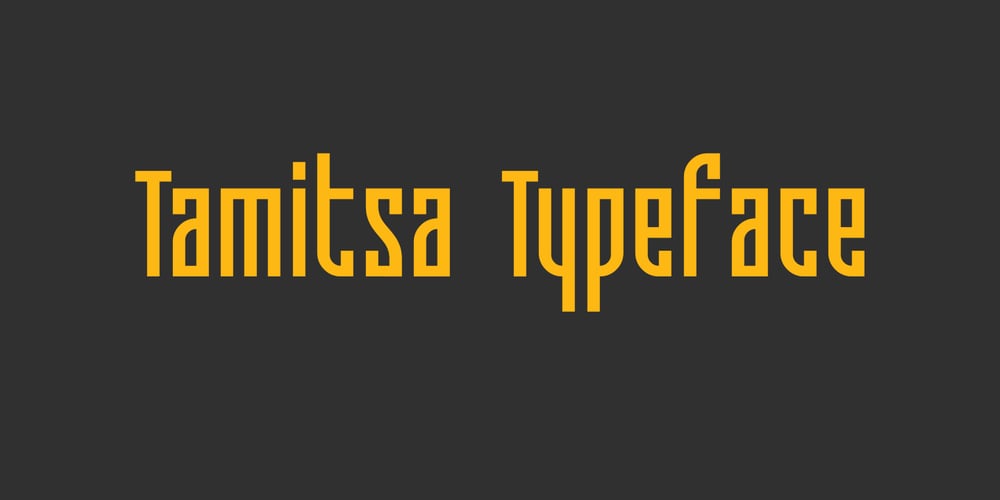
Tamitsa
Tamitsa font
Tamitsa Font Family was designed by Vladimir Platonov and published by QubaType. Tamitsa contains 4 styles and family package options. Tamitsa is a condensed display sans font. The font is universal and can be used in different directions of graphic design – Internet, printed materials, clothing, logos, posters, labels, navigation and more. Thanks to character compression, you can place a large amount of information in a compressed space. It will read equally well in large and small sizes. Tamitsa contains 4 fonts: 2 regular and 2 slanted.